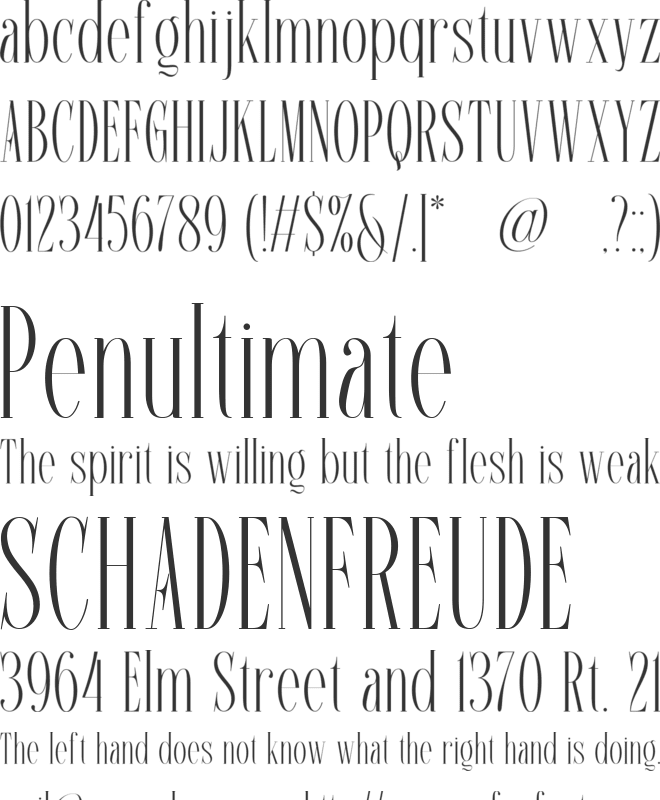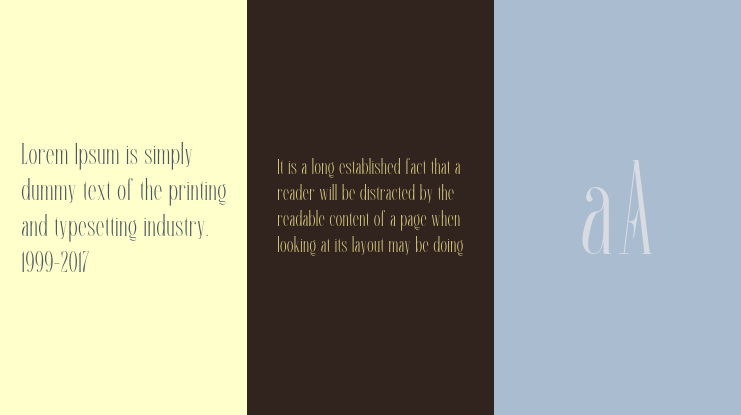
Ground Village Font
Introducing the Ground Village Typeface, a modern sans serif font that combines contemporary design with timeless sophistication. The font has a slightly taller design, giving your text an elongated and elegant look that exudes confidence and clarity.